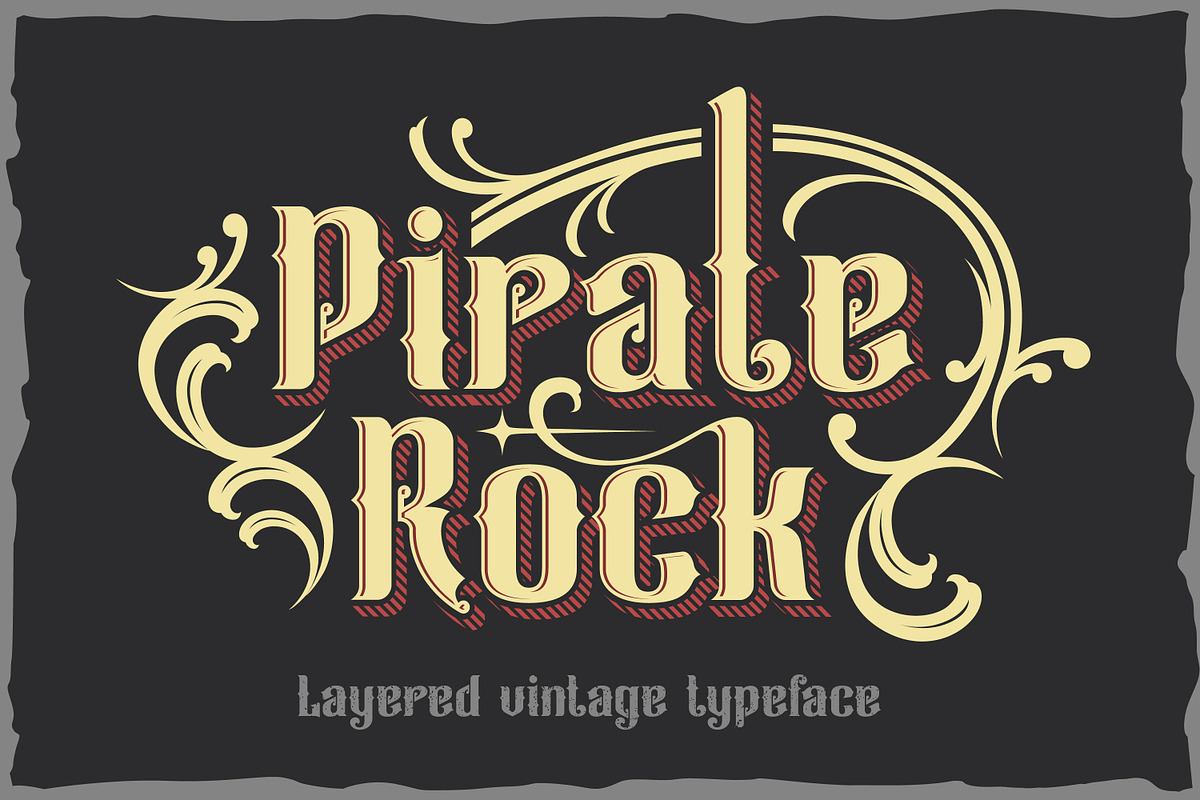
Pirate rock - vintage layered font Free Download
Pirate Rock Font Free Download is a bold vintage layered typeface that brings swashbuckling attitude and classic rock vibes into one unforgettable design. With its rugged texture, layered effects, and retro styling, this font is perfect for band logos, bar signage, poster art, apparel design, and anything that needs a touch of rebellious nostalgia.
The layered system lets you stack shadows, outlines, and textures for a dynamic 3D look that grabs attention and delivers impact. Whether you're designing for music, merch, or vintage branding, Pirate Rock is built to stand out. Pirate Rock Font Free Download gives you the chance to explore it in personal projects before purchasing a commercial license.
Set sail on a creative journey with Pirate Rock — the vintage layered font that rocks hard and roars louder.